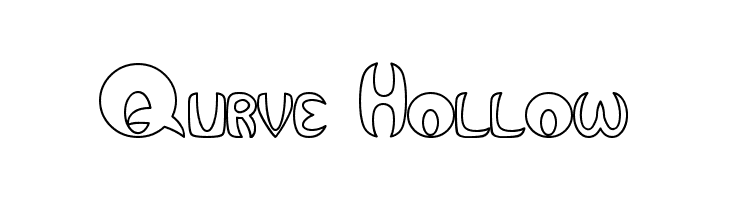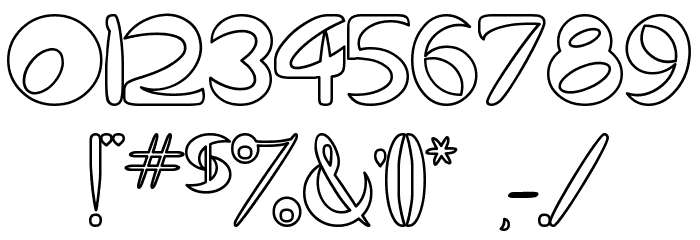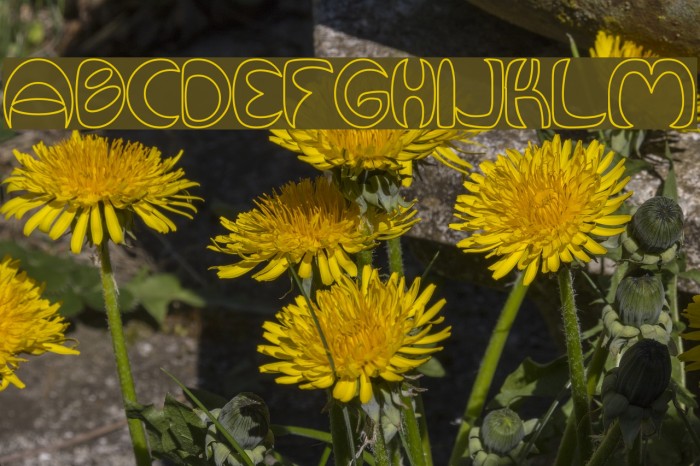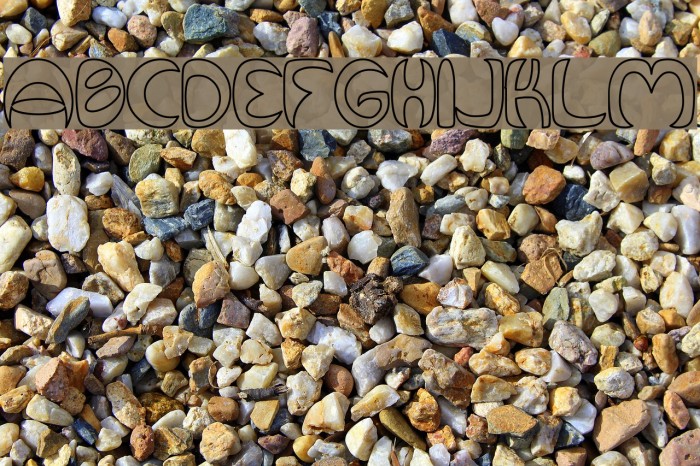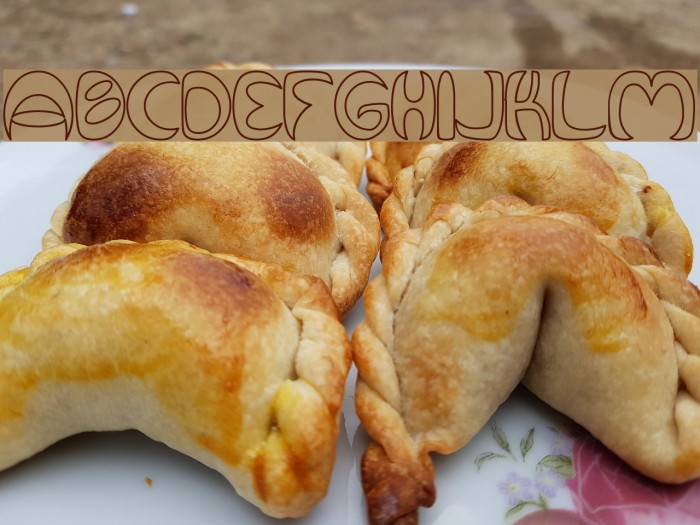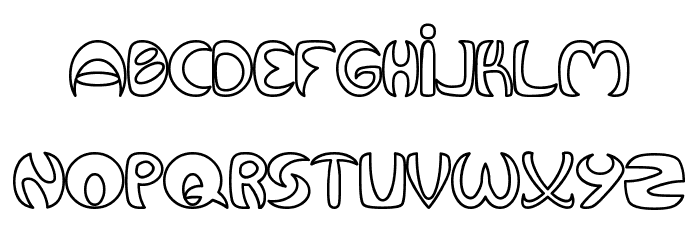
Qurve Hollow Font
Qurve Hollow Description
This font features a unique hollow design with bold, rounded edges that create a playful and modern appearance. The characters are outlined, giving them a three-dimensional effect that stands out on any background. The uppercase and lowercase letters maintain a consistent style, with smooth curves and a balanced structure. Numbers and special characters are designed to match the overall aesthetic, making this font versatile for various creative projects. Its distinct style is eye-catching and ideal for designs that require a bold statement.